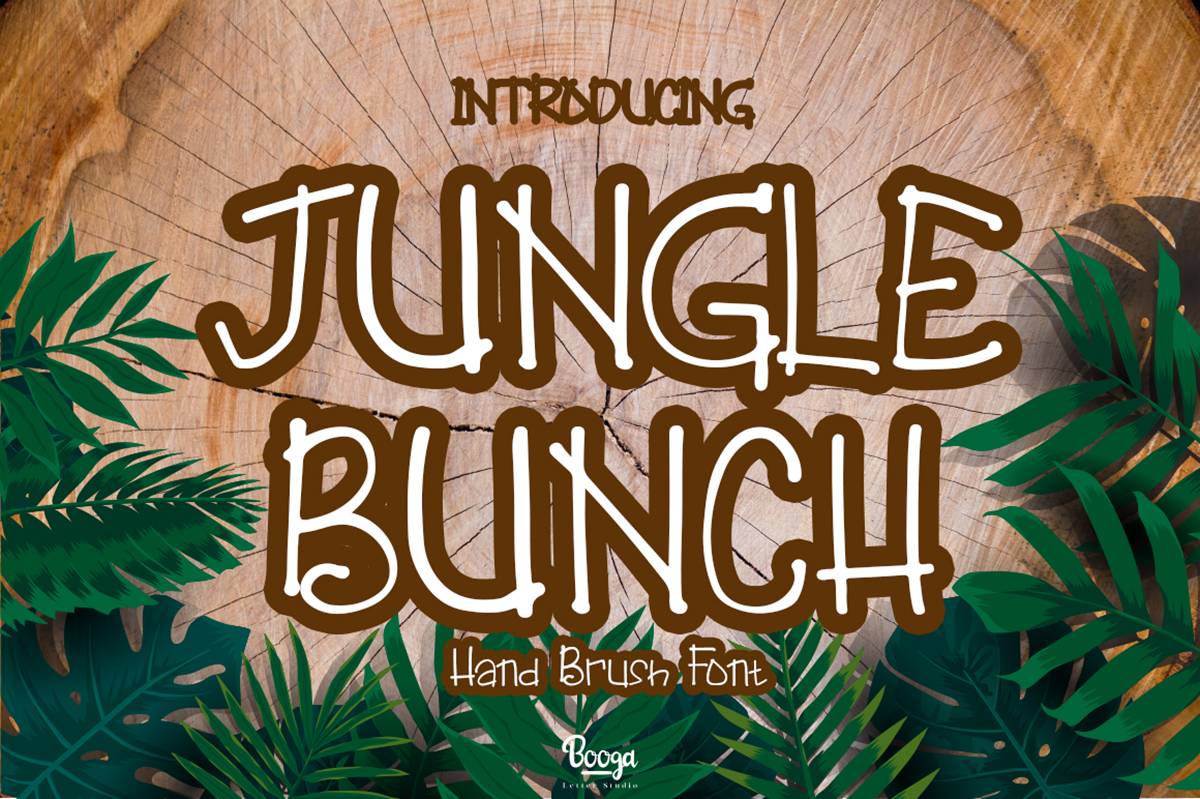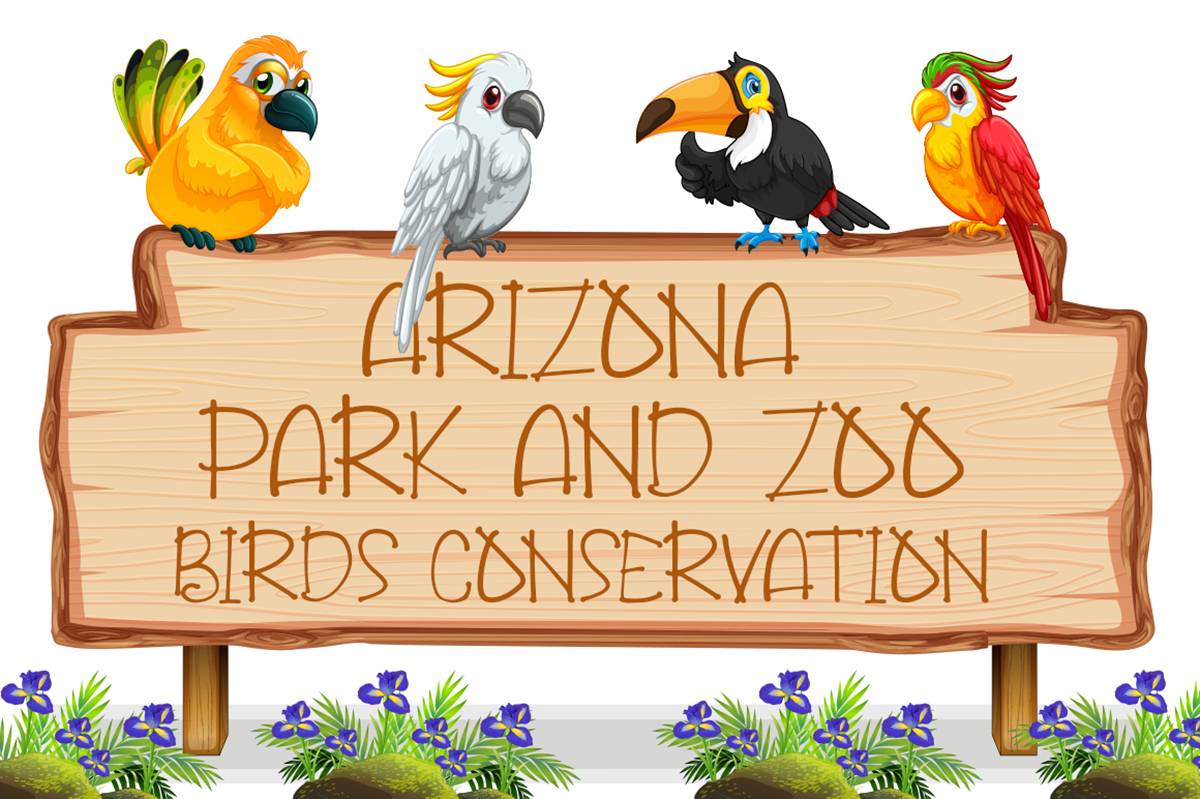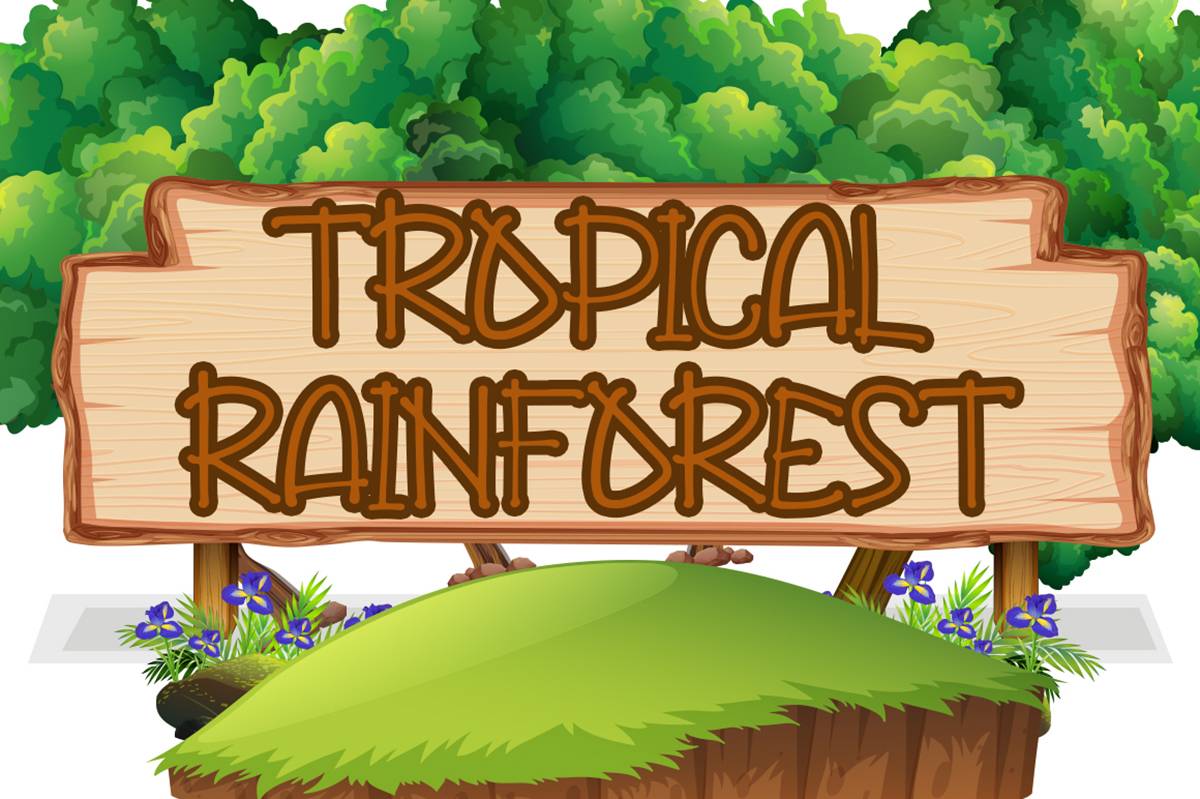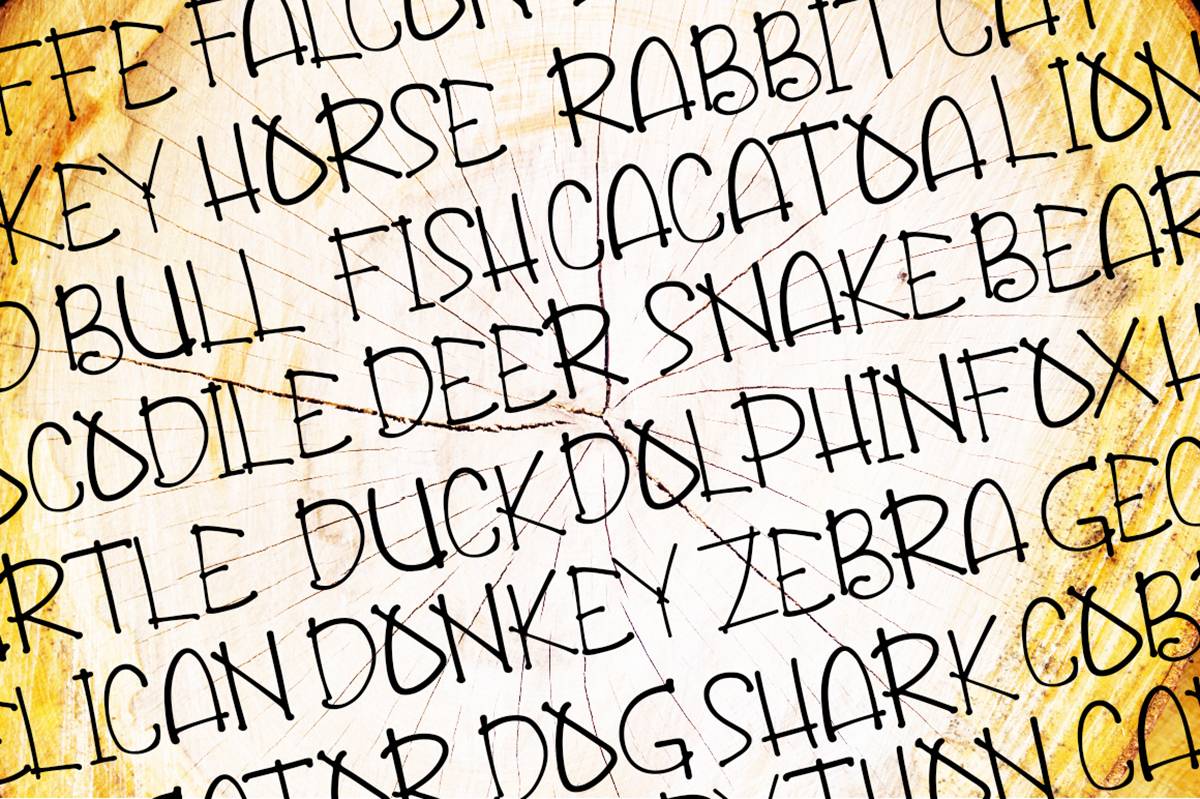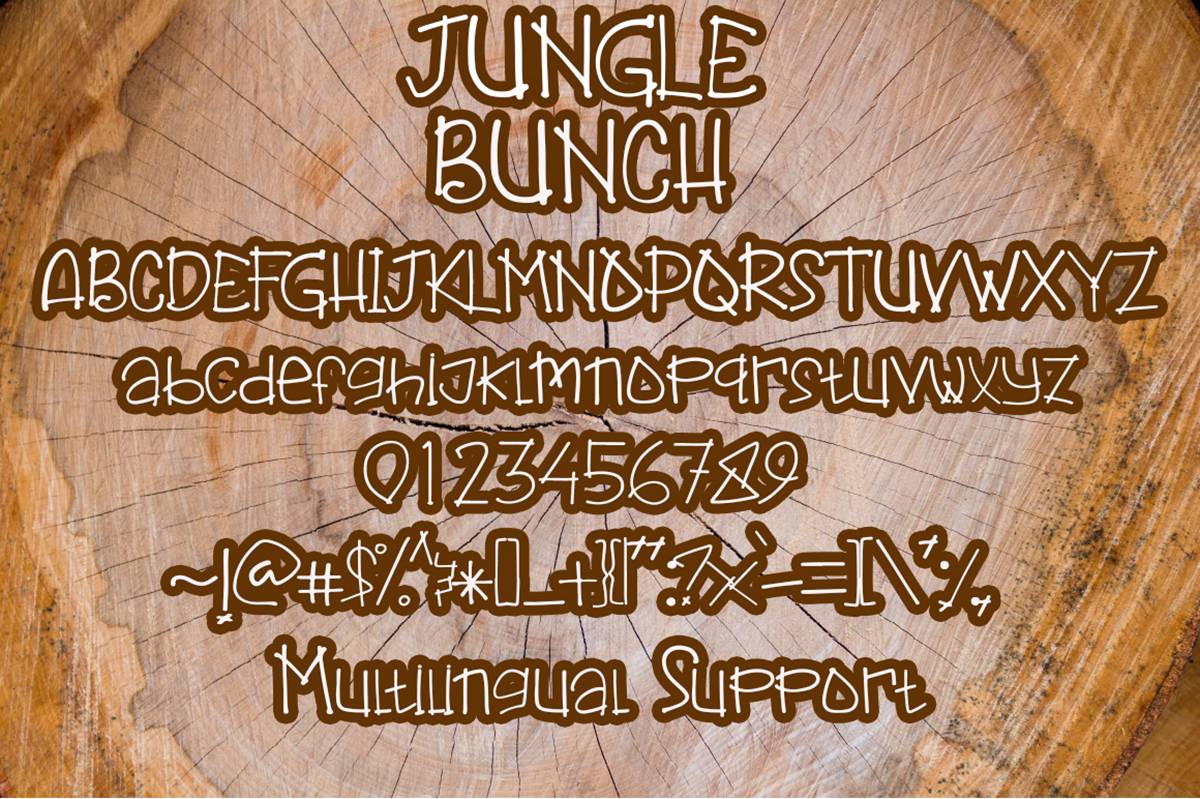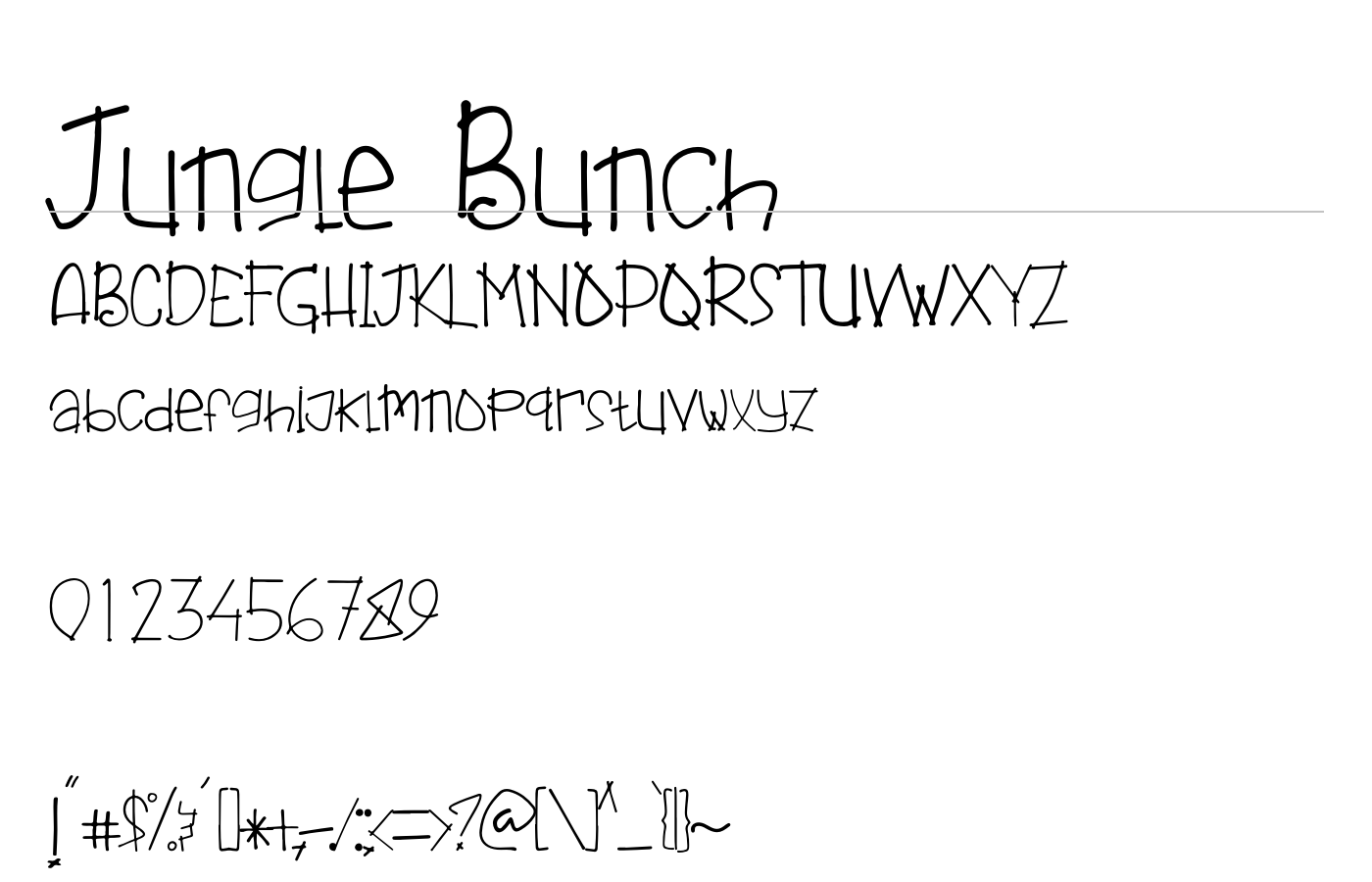
Jungle Bunch is a playful, handwritten font with a quirky and organic feel, featuring thin, uneven strokes that mimic natural handwriting. Its tall, narrow letterforms with irregular shapes and whimsical details make it perfect for fun, informal designs like children’s books, casual branding, or creative posters. This font brings a lighthearted, youthful energy that works well where a friendly, approachable tone is desired.
Jungle Bunch Font
About Jungle Bunch Font
| Font family | Jungle Bunch Font |
| Designer | Fajar Wicaksono |